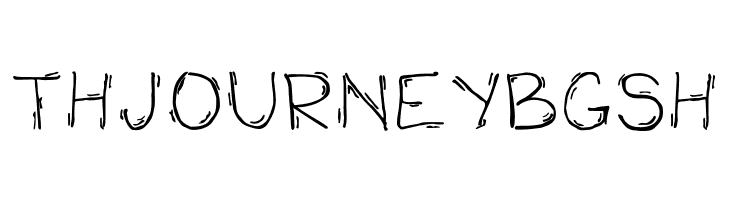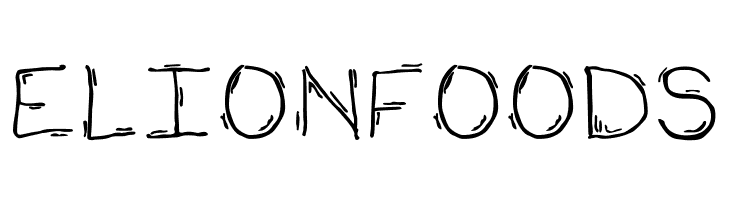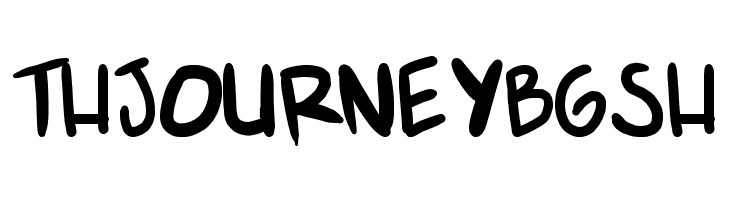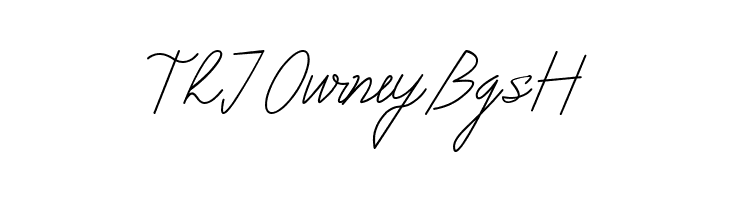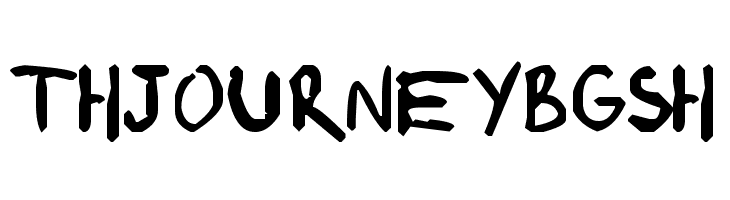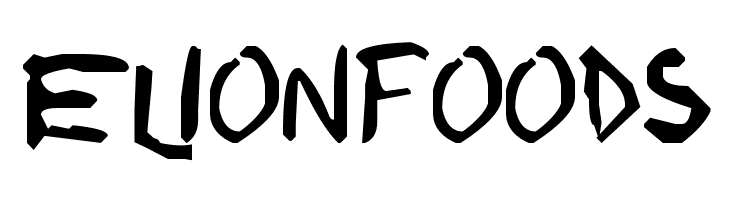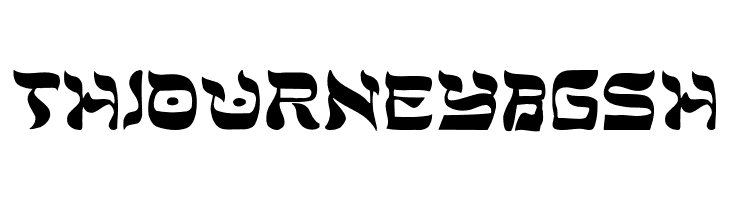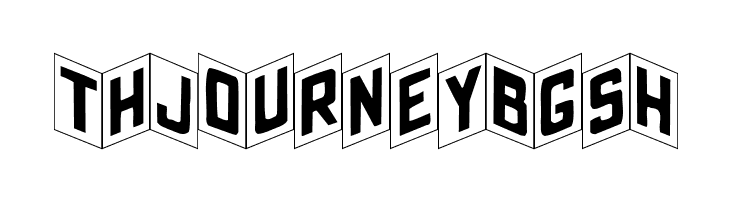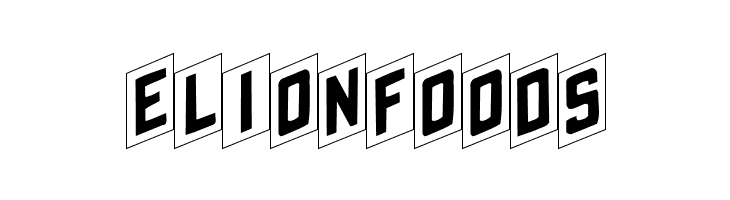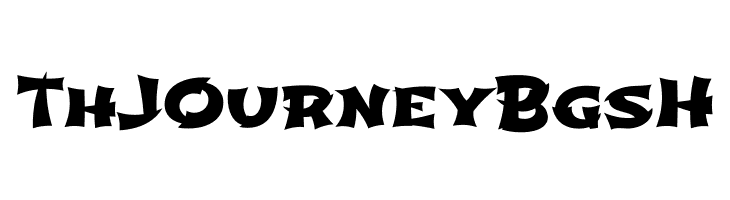
• Shohl Regular
• Shojumaru
A bold, angular font with sharp edges and a dynamic style.
• Shojumaru-Regular
A bold, dynamic font with sharp, angular edges and a tribal-inspired style.
• Sholeha
A classic, elegant handwritten script with flowing, connected characters.
• Sholes & Glidden
A bold, hand-drawn font with an organic, playful style.
• Sholom
A bold, decorative font inspired by traditional Hebrew calligraphy.
• Shoneica
A bold, distressed font with a grunge, hand-drawn aesthetic.
• shonen punk v2
A bold, graffiti-inspired font with a playful, hand-drawn style.
• shonen punk! custom
A bold, hand-drawn font with a rebellious, punk-inspired style.
• Shook Regular
A playful, hand-drawn font with a sketch-like, dynamic appearance.